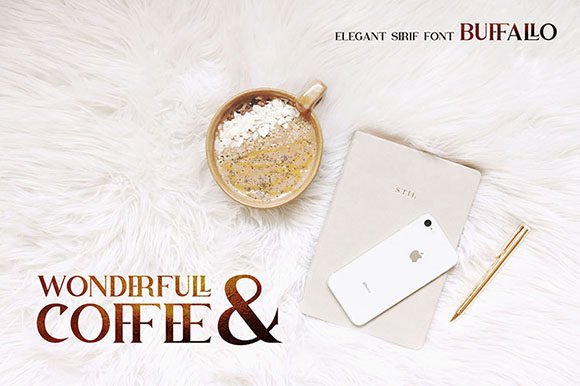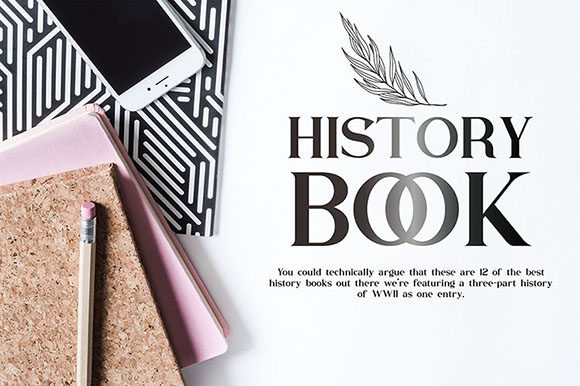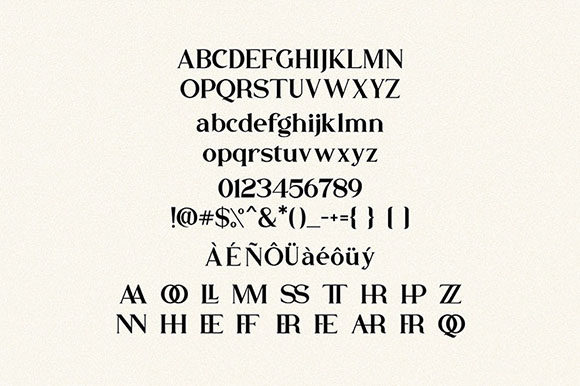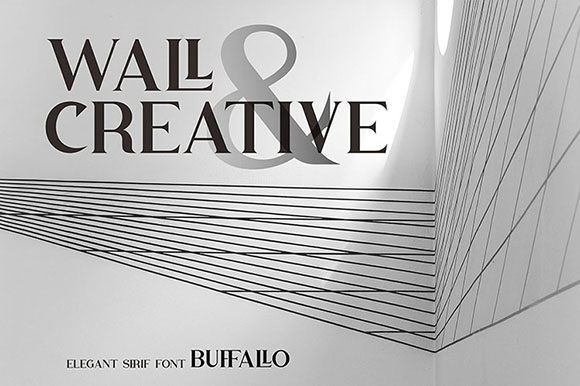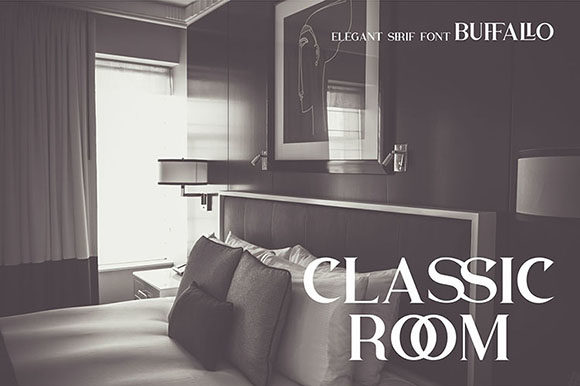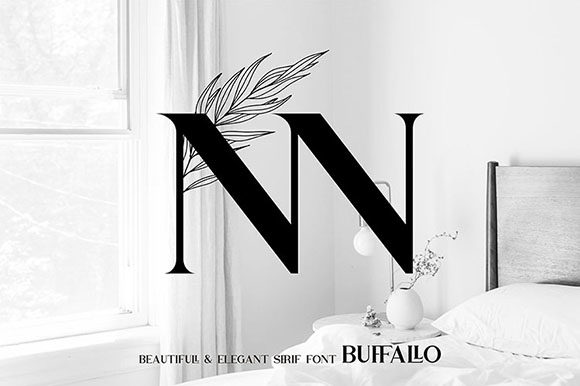
Introducing Buffallo: The Ultimate Serif Font for Editorial Design
Are you tired of using the same old fonts for your editorial designs? Look no further! Buffallo is an original and stylish serif font that brings a fresh perspective to the world of typography. With its unique approach to design, Buffallo is set to become your go-to font for all your editorial needs.
The Story Behind Buffallo
Buffallo is more than just a font – it’s a design statement. Created with the modern designer in mind, Buffallo combines classic serif elements with a modern twist, making it perfect for editorial designs that require a touch of sophistication and elegance. The font’s unique design approach is inspired by the beauty of imperfect lines and curves, giving it a distinctive character that’s hard to ignore.
Key Features of Buffallo
- Unique Serif Design: Buffallo’s serif design is unlike any other. Its subtle imperfections and distinctive flair make it perfect for headlines, titles, and editorial content.
- Editorial Vibe: Buffallo is designed specifically for editorial design, making it ideal for use in magazines, newspapers, and online publications.
- Highly Versatile: Whether you’re designing a fashion magazine or a lifestyle blog, Buffallo’s versatility ensures it will fit right in.
- Easy to Read: Despite its unique design, Buffallo remains highly legible, making it perfect for body text as well as headlines.
What Makes Buffallo Stand Out
In a sea of fonts, Buffallo stands out for several reasons. Its distinctive serif design gives it a personality that’s hard to replicate, while its editorial vibe ensures it’s always relevant. Whether you’re looking to add a touch of sophistication to your design or simply want a font that will make your content stand out, Buffallo is the perfect choice.
How to Use Buffallo in Your Designs
Using Buffallo in your designs is easy. Here are a few tips to get you started:
- Pair it with Sans-Serif Fonts: Buffallo pairs beautifully with sans-serif fonts, creating a striking contrast that’s perfect for editorial designs.
- Use it for Headlines and Titles: Buffallo’s unique design makes it perfect for headlines and titles, where it can add a touch of elegance and sophistication.
- Experiment with Font Sizes: Buffallo remains legible at a variety of font sizes, making it perfect for use in both body text and headlines.
Why Designers and Crafters Love Buffallo
Designers and crafters love Buffallo for several reasons. Its unique design approach gives them a fresh perspective on typography, while its editorial vibe ensures it’s always relevant. Here are a few reasons why Buffallo has become a favorite among designers and crafters:
- Unique Design: Buffallo’s distinctive serif design sets it apart from other fonts, giving designers a fresh perspective on typography.
- Highly Versatile: Buffallo’s versatility ensures it can be used in a variety of design applications, from magazines to online publications.
- Easy to Use: Buffallo is easy to use, even for designers who are new to working with serif fonts.
In conclusion, Buffallo is an original and stylish serif font that’s perfect for editorial design. Its unique approach to design, combined with its editorial vibe, makes it a must-have for designers and crafters looking to add a touch of sophistication to their work. With its highly versatile design and ease of use, Buffallo is set to become your go-to font for all your editorial needs.
Get Inspired by Buffallo’s Unique Approach to Design